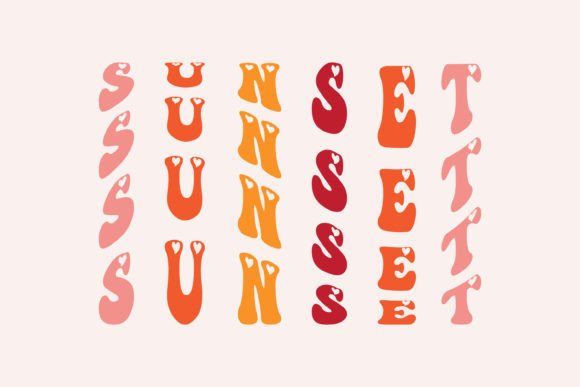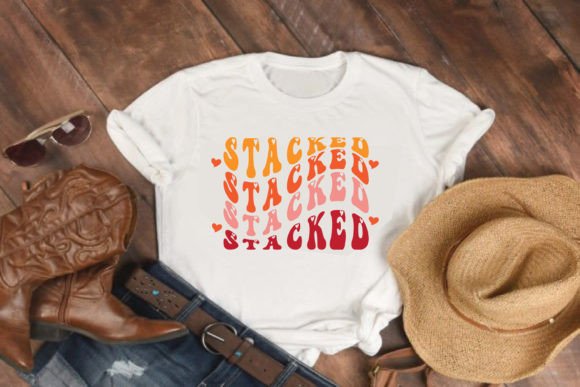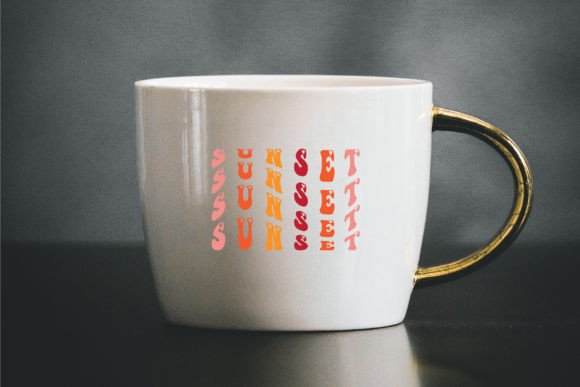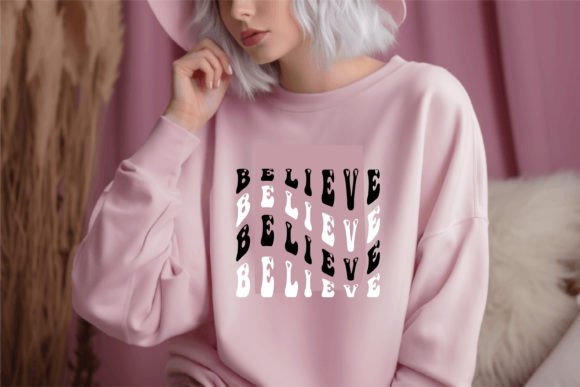
Introduction to Love Wavy Stacked Font
As a designer, there’s nothing quite like that ‘aha’ moment when a project comes together and you know you’ve nailed it. But sometimes, it’s the smallest details that can make all the difference. For me, it’s the thrill of discovering a new font that perfectly captures the essence of a brand or message. And today, I’m excited to share with you just such a find: the Love Wavy Stacked Font.
This vibrant, high-quality font is a game-changer for any creative project. With its free download and transparent background, it’s the perfect design resource for designers looking to add a splash of whimsy and personality to their work. Whether you’re working on a branding initiative, packaging design, or wedding invitation, the Love Wavy Stacked Font is sure to elevate your design endeavors and leave a lasting impression.
Key Features of Love Wavy Stacked Font
- High-quality, hand-drawn design perfect for creative projects
- Transparent background, allowing for seamless integration into various designs
- Unique characteristics: wavy, stacked, and layered design elements, adding a touch of whimsy and romance
- Perfect for expressing love and affection in creative projects, such as wedding invitations, valentines, and more
Honest Review: Love Wavy Stacked Font
I recently stumbled upon the Love Wavy Stacked Font, and I’m excited to share my thoughts on this design resource. This high-quality font is perfect for any creative project that requires a touch of whimsy and romance.
The font is available for free download, which is a major bonus for designers on a budget. The transparent background option makes it easy to incorporate into any design without worrying about unwanted background elements.
- Unique and playful design style
- Perfect for wedding invitations, social media graphics, and other romantic-themed projects
- High-quality, clear, and legible font
- ⚠️ Limited character set, may not be suitable for extensive text-based projects
- ⚠️ Not ideal for formal or professional designs
Overall, I’m impressed with the Love Wavy Stacked Font. Its unique design style and high-quality rendering make it a great addition to any designer’s toolkit. While it may not be suitable for every project, it’s perfect for those looking to add a touch of romance and whimsy to their creative work.
To get the most out of the Love Wavy Stacked Font, use it sparingly and strategically. Pair it with other fonts and design elements to create a balanced and visually appealing design. Experiment with different font sizes, colors, and arrangements to find the perfect combination for your creative project.
The Love Wavy Stacked Font is perfect for a variety of creative projects, including wedding invitations, baby shower decorations, and social media graphics. Its unique, wavy aesthetic makes it a great choice for designs that need a touch of whimsy and personality.